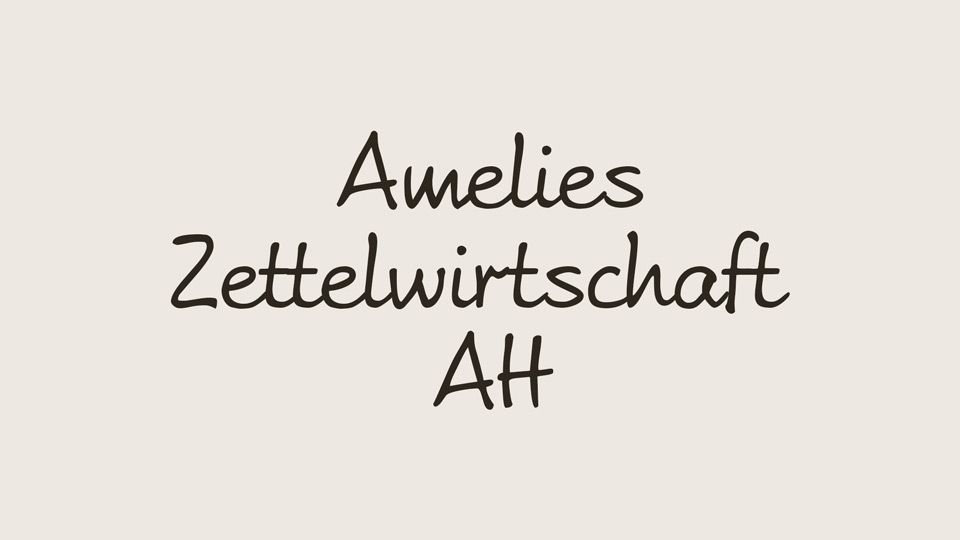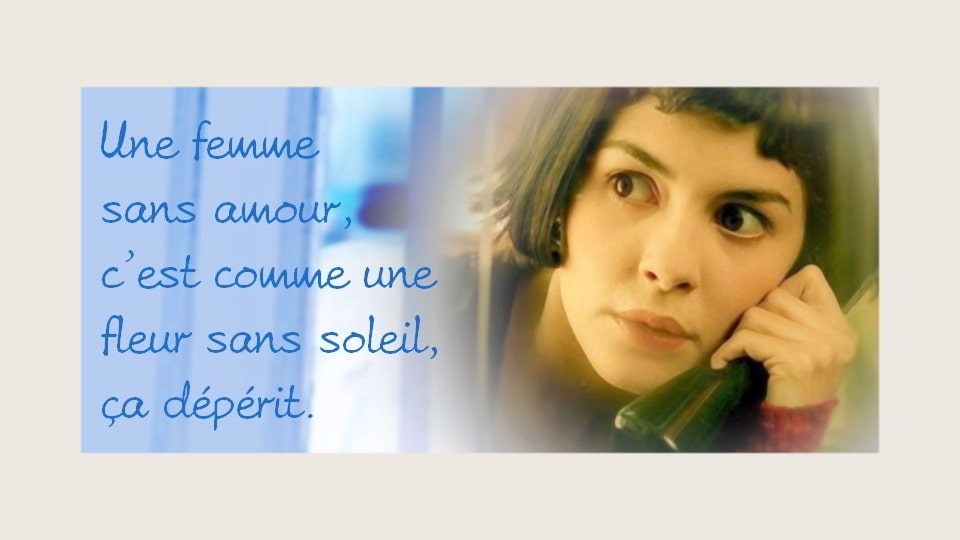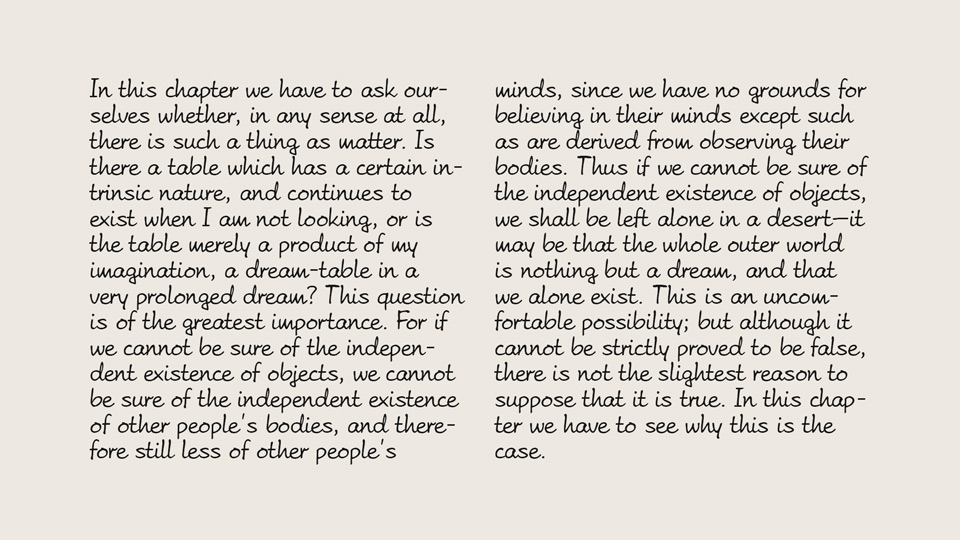
Who the f… is Amelie?
Actually, I haven’t the foggiest. Maybe she is a student or a waitress, perhaps in her mid-twenties, and if you know her, you must adore her. The German word “Zettelwirtschaft” cannot be translated. It means that Amelie usually keeps important information on many small bits of paper, which may look confusing to you as an outsider, but Amelie can manage quite well with her beautiful handwriting.
Amelies Zettelwirtschaft AH imitates a hand with connecting characters. Make sure to turn “Kerning” on in character formatting. This will improve letterspacing and even produce a number of ligatures (connected letter forms) even without OpenType features (tt ff ft tz and others).